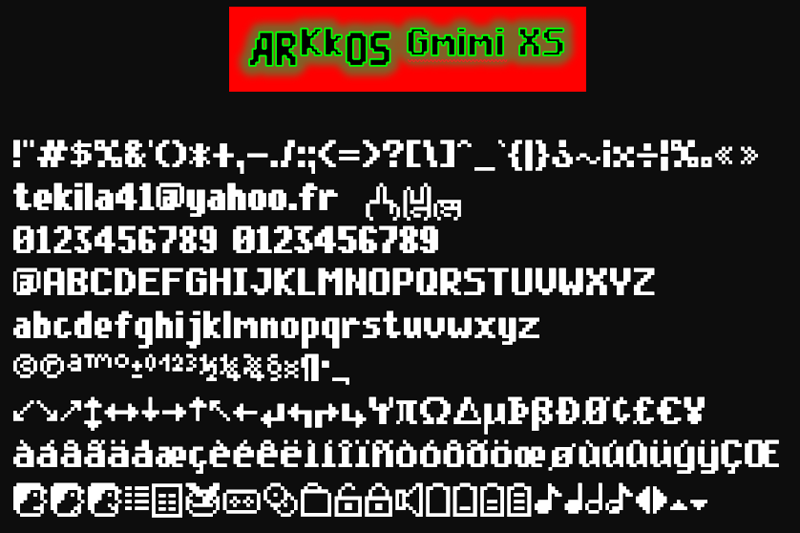
Font name: | Arkkos Gmimi |
Author: | Pierre Boutet |
Note by Pierre Boutet | |
Police inspir�e de mon premier lecteur MP3. Id�al Wordart, affiche... Pour usage personnel uniquement. Me contacter pour un usage commercial : tekila41@yahoo.fr Font inspired by my first MP3 player. Ideal Wordart, poster ... For personal use only. Contact me for commercial use: tekila41@yahoo.fr ENJOY!! |